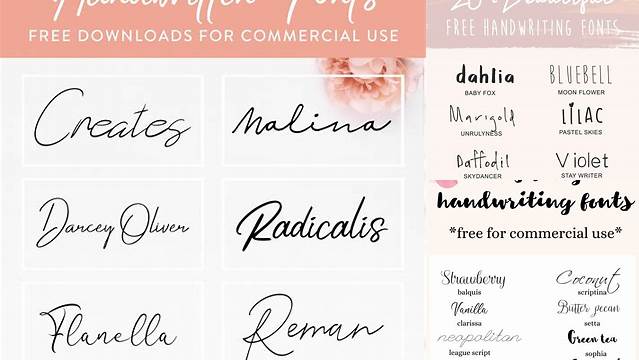
Free Handwriting Fonts For Commercial Use: Your Ultimate Guide
Hey everyone! Are you looking for that perfect handwritten touch for your next project? Maybe you're a blogger, a small business owner, or a designer, and you're tired of the same old boring fonts. Well, you're in luck! This guide is all about handwriting fonts free for commercial use. That's right, we're talking about beautiful, authentic-looking fonts that you can use for your business without breaking the bank. We'll dive into where to find them, how to use them, and some of the best options out there. So, grab a coffee, get comfy, and let's explore the wonderful world of free handwriting fonts!
H2: The Allure of Handwriting Fonts in a Digital World
Alright, let's kick things off by talking about why handwriting fonts are so darn appealing, even in our super digital world. Seriously, what is it about these fonts that make them stand out? Well, it's all about that human touch, guys. In a world dominated by clean lines and perfectly symmetrical designs, a handwriting font injects personality and authenticity. It feels personal, like a message crafted just for you. Think about it: a website with a handwritten headline immediately grabs your attention, doesn't it? It's more inviting and less stuffy than a standard sans-serif. Handwriting fonts free for commercial use allow businesses to create a unique brand identity. They can be used for logos, social media posts, website headers, and even packaging. Imagine a coffee shop using a whimsical handwritten font for their menu or a boutique clothing store using an elegant script font for their labels. The possibilities are endless! Using a handwriting font can also make your brand seem more approachable and friendly. Customers are more likely to connect with a business that feels real and genuine. These fonts evoke feelings of nostalgia, creativity, and warmth, which is a powerful combination in marketing. Let's face it, people are tired of seeing the same generic fonts everywhere. Handwriting fonts offer a refreshing change of pace, making your brand more memorable. They can be particularly effective for businesses targeting a younger audience, who often appreciate a more relaxed and informal style. Another major advantage is their ability to add a creative flair to your designs. You can use handwriting fonts to mimic the look of calligraphy, sketching, or even a child's handwriting. This versatility makes them suitable for a wide range of projects, from invitations to infographics. The key is to find a font that matches your brand's personality and target audience. Always ensure that the font you choose complements your brand's overall aesthetic and message. The fonts can be used to create a sense of playfulness, sophistication, or even vintage charm, depending on the style of the font. Therefore, choosing the right font is essential. This is where our discussion about handwriting fonts free for commercial use comes in handy. You can try different fonts without spending a fortune. So, it's a win-win!
H3: Types of Handwriting Fonts Available
Okay, so we know handwriting fonts are awesome, but what kind are out there? There's a whole spectrum, guys! We've got everything from bubbly and playful to elegant and sophisticated. Let's break down some of the main categories you'll encounter when you start searching for handwriting fonts free for commercial use. First, there's the script fonts. These are designed to mimic actual handwriting, often with connected letters, making them look like they were written with a pen or brush. Script fonts are ideal for adding a touch of elegance and formality. Think of wedding invitations, luxury brand logos, or anything that needs a touch of class. Then there's the casual fonts. These are more relaxed and informal, often with a slightly messy or imperfect look. They're perfect for conveying a friendly and approachable vibe. Casual fonts are great for blogs, social media graphics, and anything that aims to be relatable. Next, we have the brush fonts. They emulate the look of strokes made with a brush, giving a bold and artistic feel. Brush fonts are ideal for designs that need to stand out, such as posters, t-shirts, and creative advertising. Additionally, there are marker fonts, which resemble the look of writing with a marker or felt-tip pen. They usually have thick strokes and a slightly rough edge, making them ideal for designs that need a bold, dynamic feel. Marker fonts work well for headings, quotes, and anything that needs to catch the eye. We can't forget about hand-drawn fonts, which are created to look like they were drawn by hand. They have a unique, personalized touch, making them great for designs that aim to feel authentic and original. These are frequently used for branding, illustrations, and packaging. Each type of handwriting font evokes a different feeling. The choice depends on your brand. Remember, the best font is the one that aligns with your brand's personality and target audience. Choosing the right font can significantly impact your brand's aesthetic appeal. Exploring these different types of handwriting fonts can assist you in identifying the perfect fonts. Fortunately, many of these fonts are accessible as handwriting fonts free for commercial use, allowing you to test and select the ideal style without financial commitment.
H2: Where to Find Free Handwriting Fonts for Commercial Use
Now for the good stuff: where do you actually find these amazing handwriting fonts free for commercial use? Thankfully, the internet is overflowing with resources. But, where do you start, and how do you ensure the fonts are actually free and legal to use for your business? Let's dive into some reliable sources, shall we? First up, we've got Google Fonts. This is probably the most popular and trusted source. Google Fonts offers a massive library of fonts, all free for both personal and commercial use. The website is super easy to navigate. You can filter by style, thickness, and language, making it easy to find the perfect handwriting font for your project. What's even better? Google Fonts is integrated with many design tools. Next, we have Font Squirrel. This site is a font-lover's paradise, with a curated selection of high-quality, free fonts, many of which are available for commercial use. Font Squirrel is known for its user-friendly interface and commitment to quality. They make it easy to verify the license before downloading any font, saving you the headache of copyright issues. They also provide a helpful